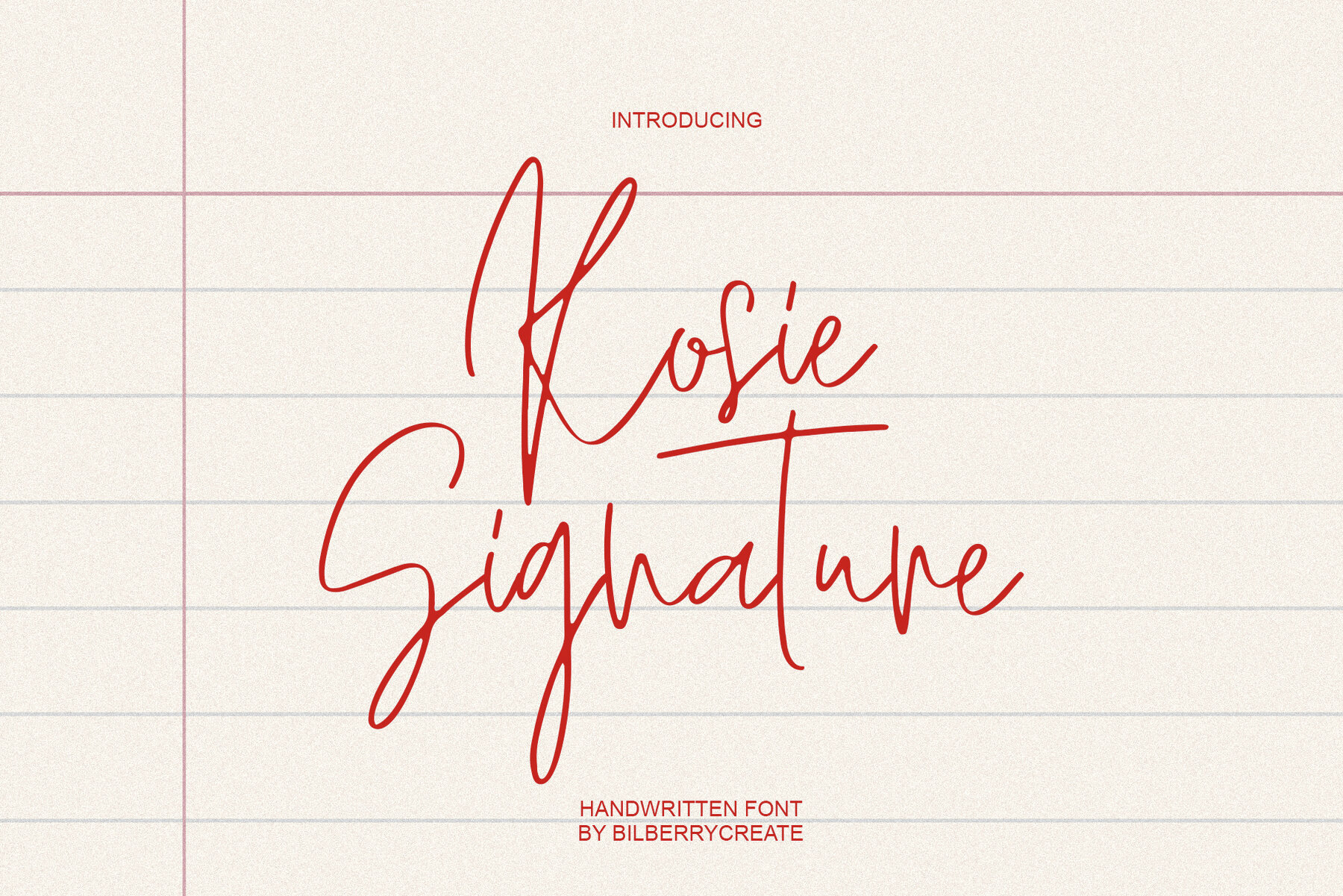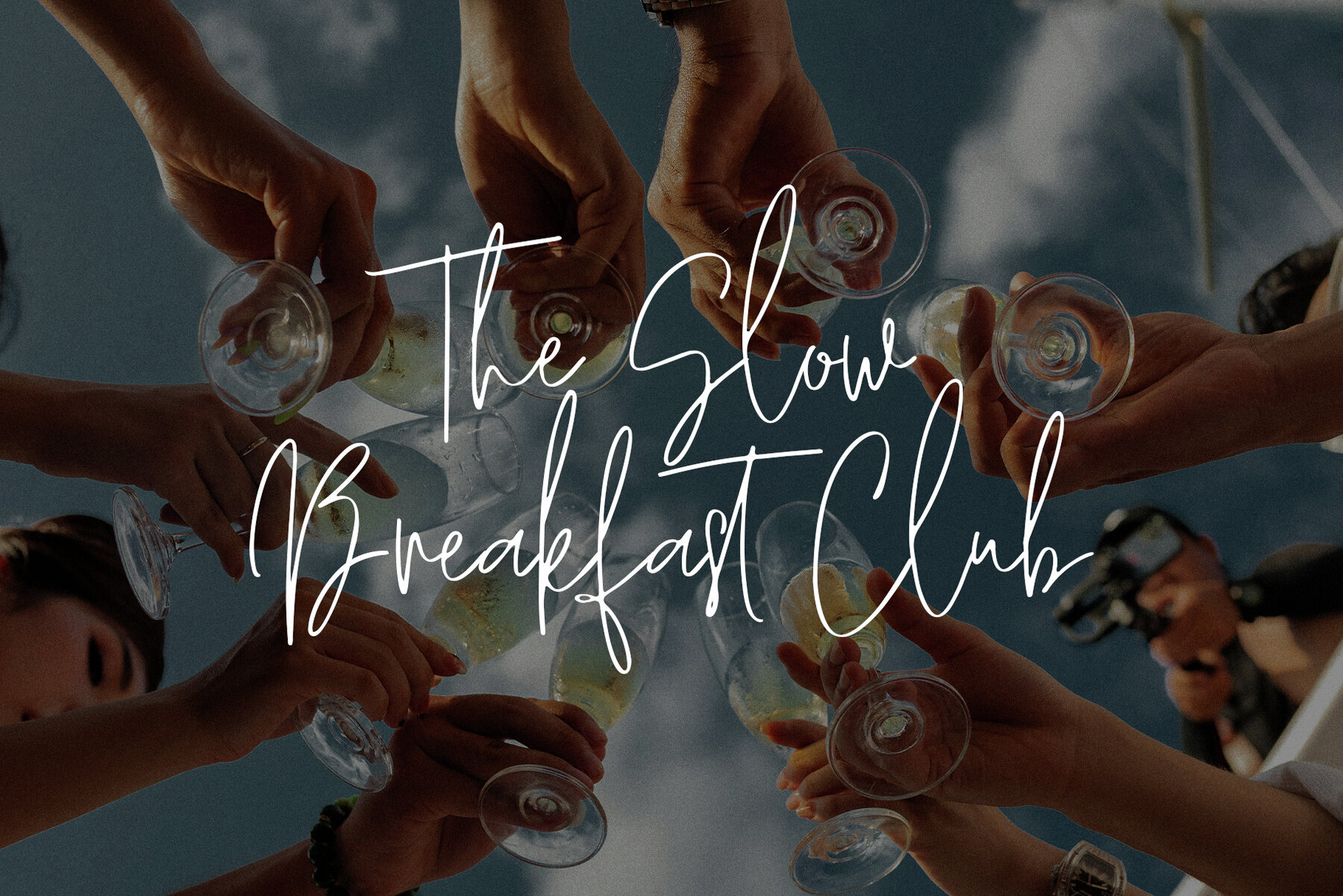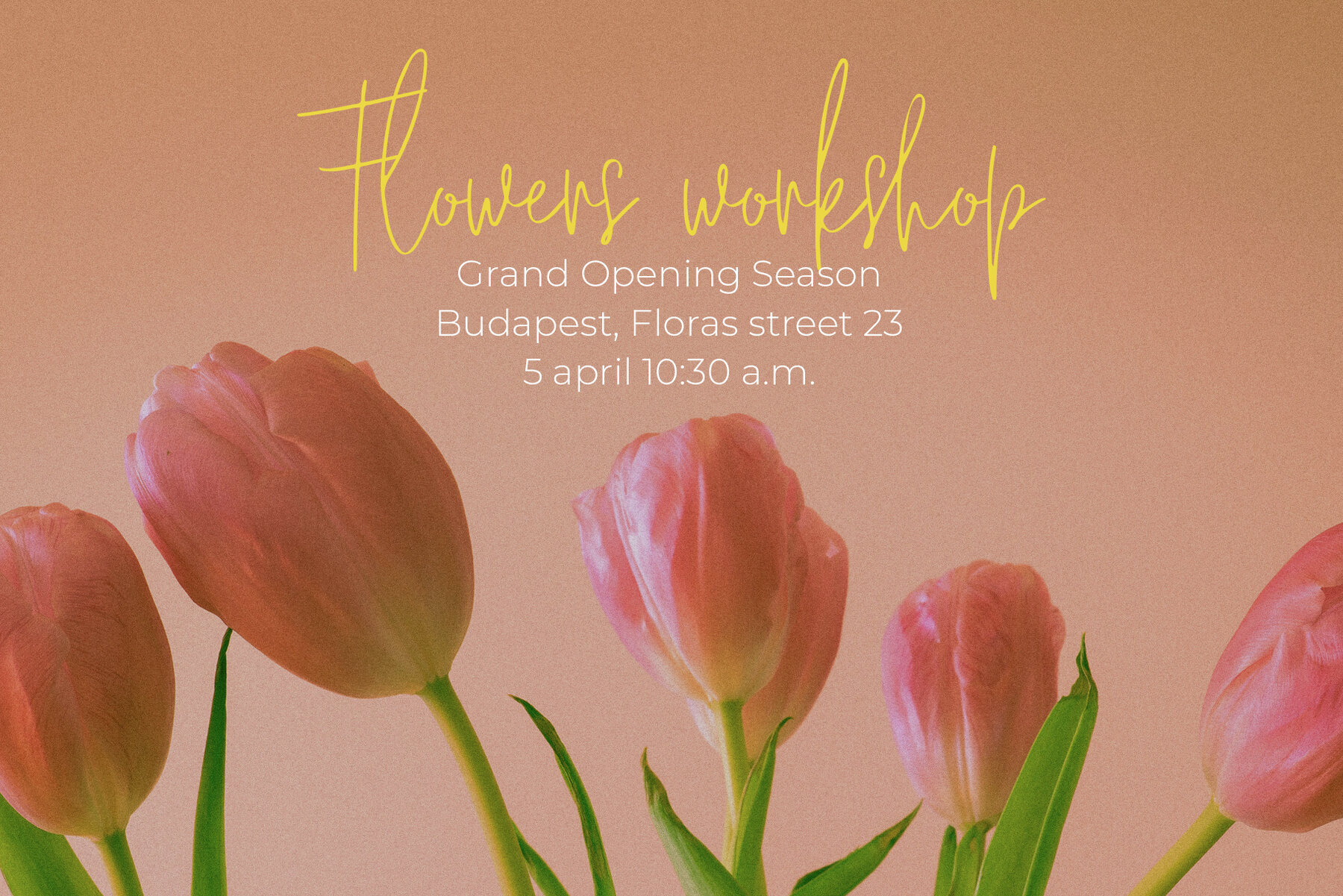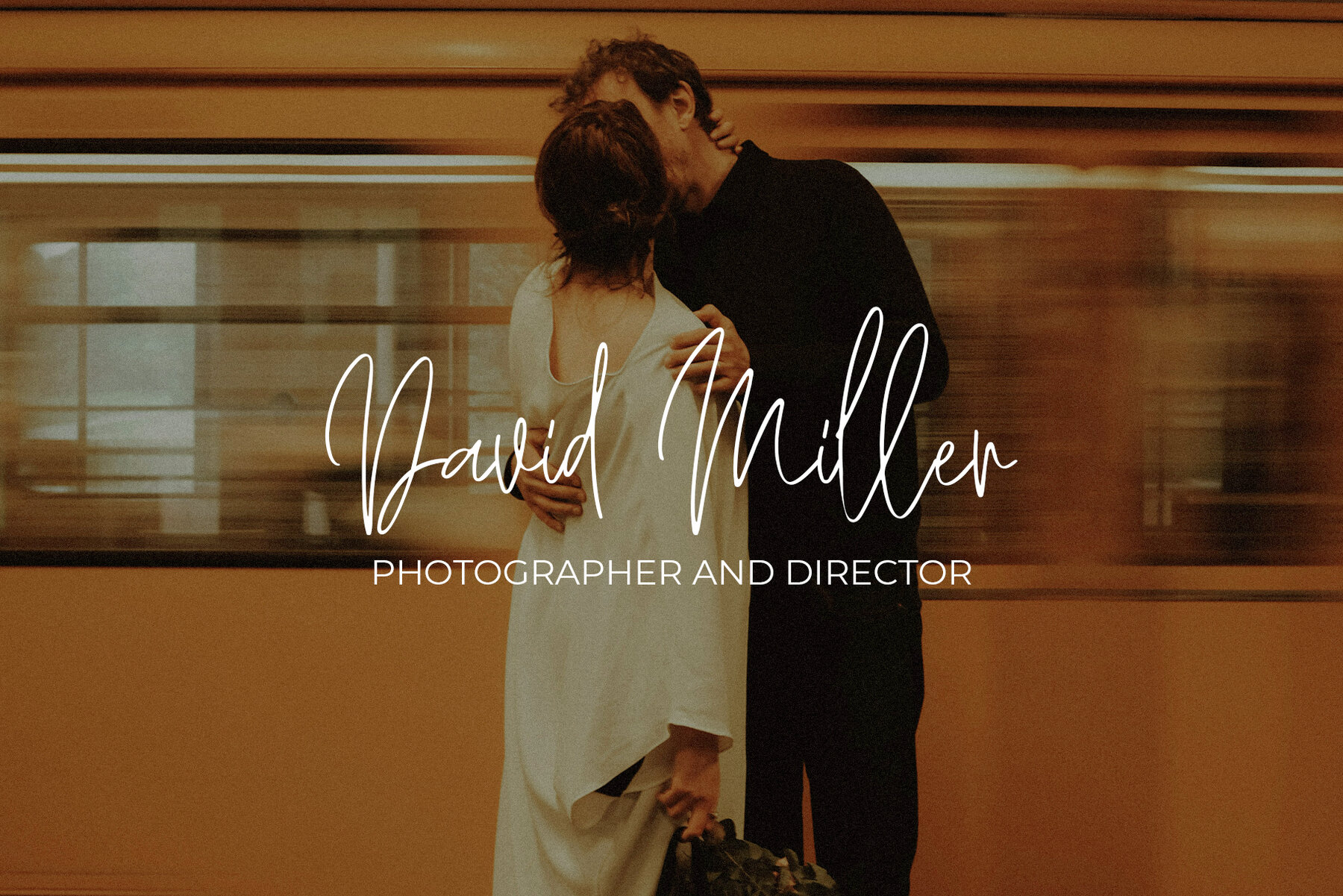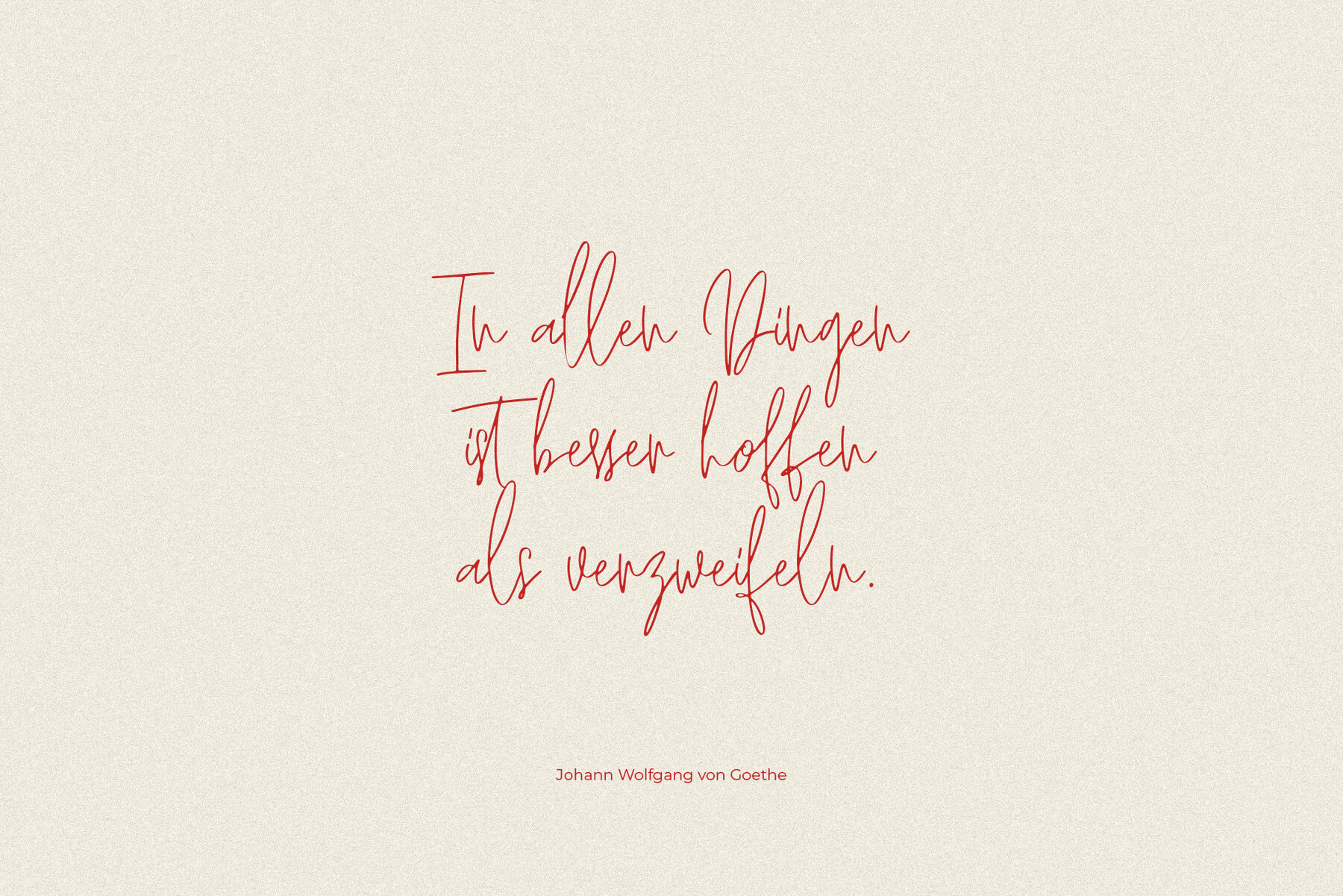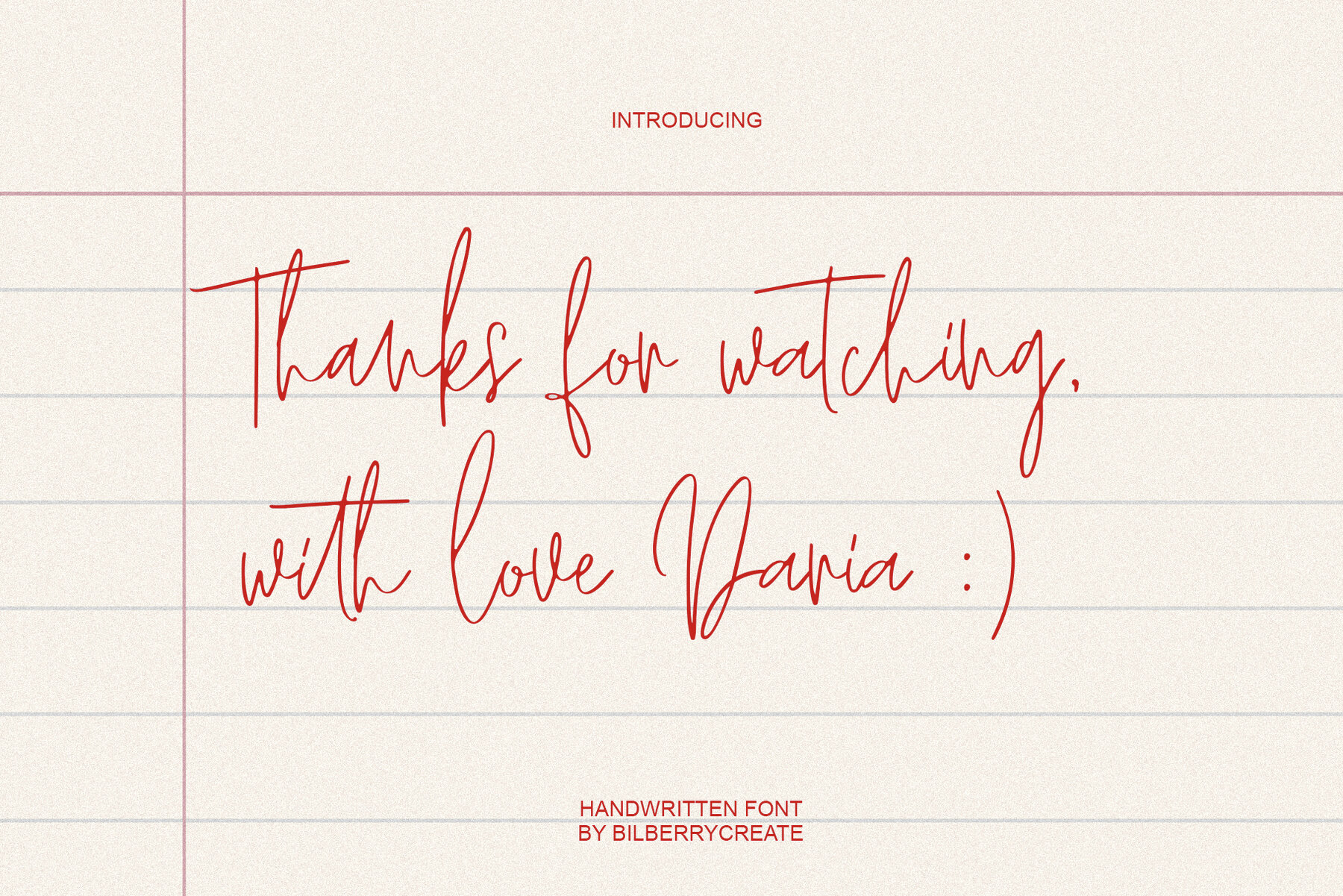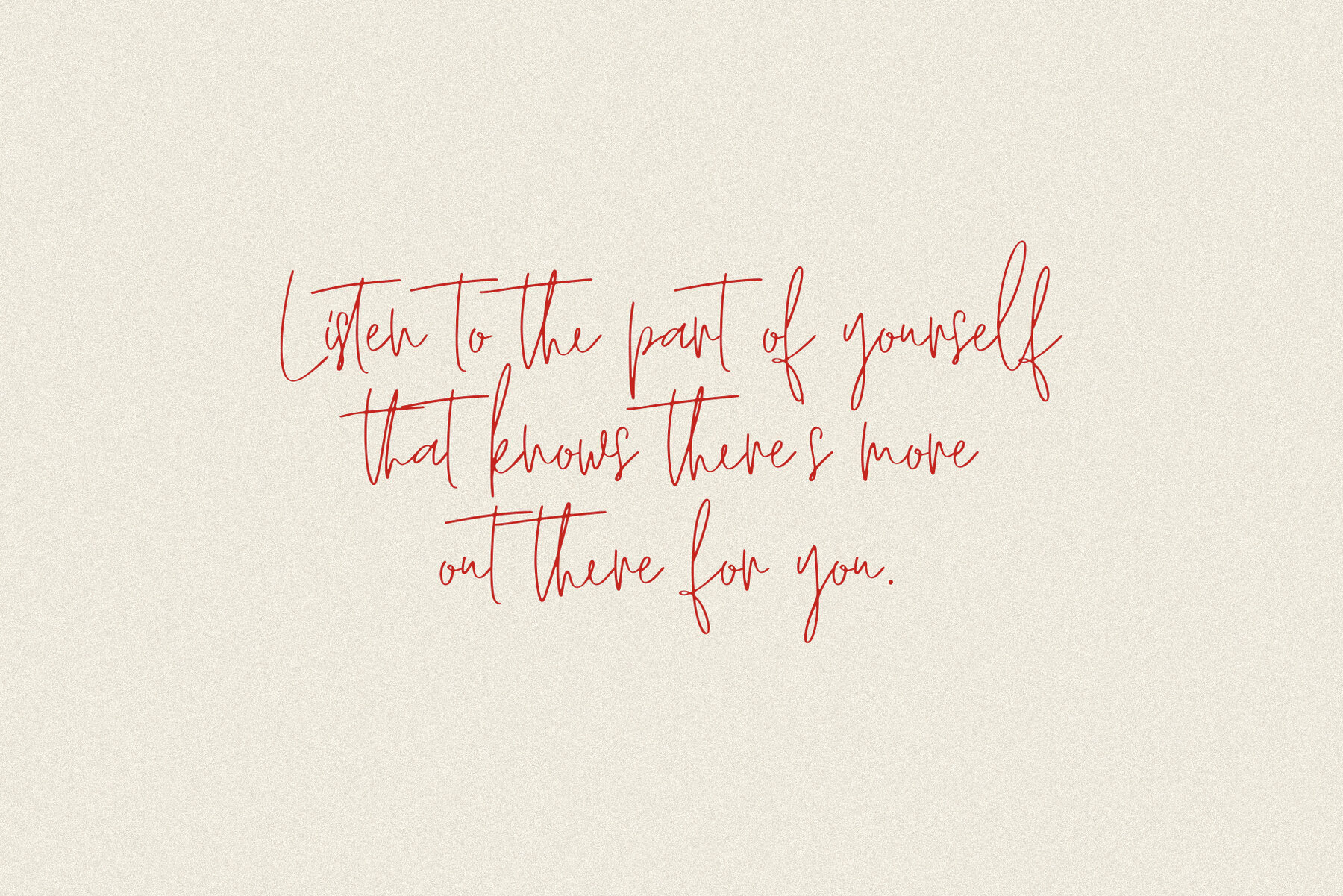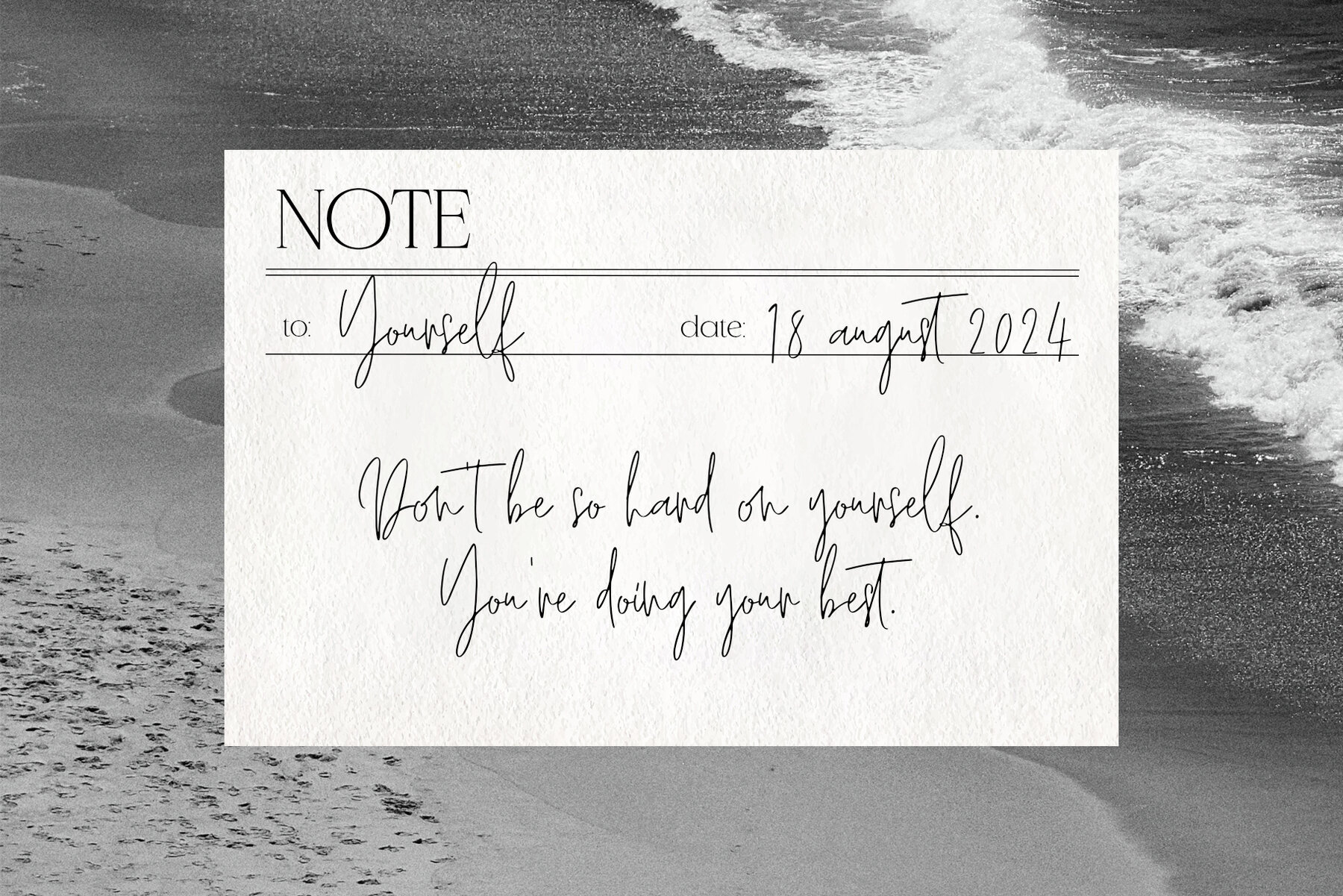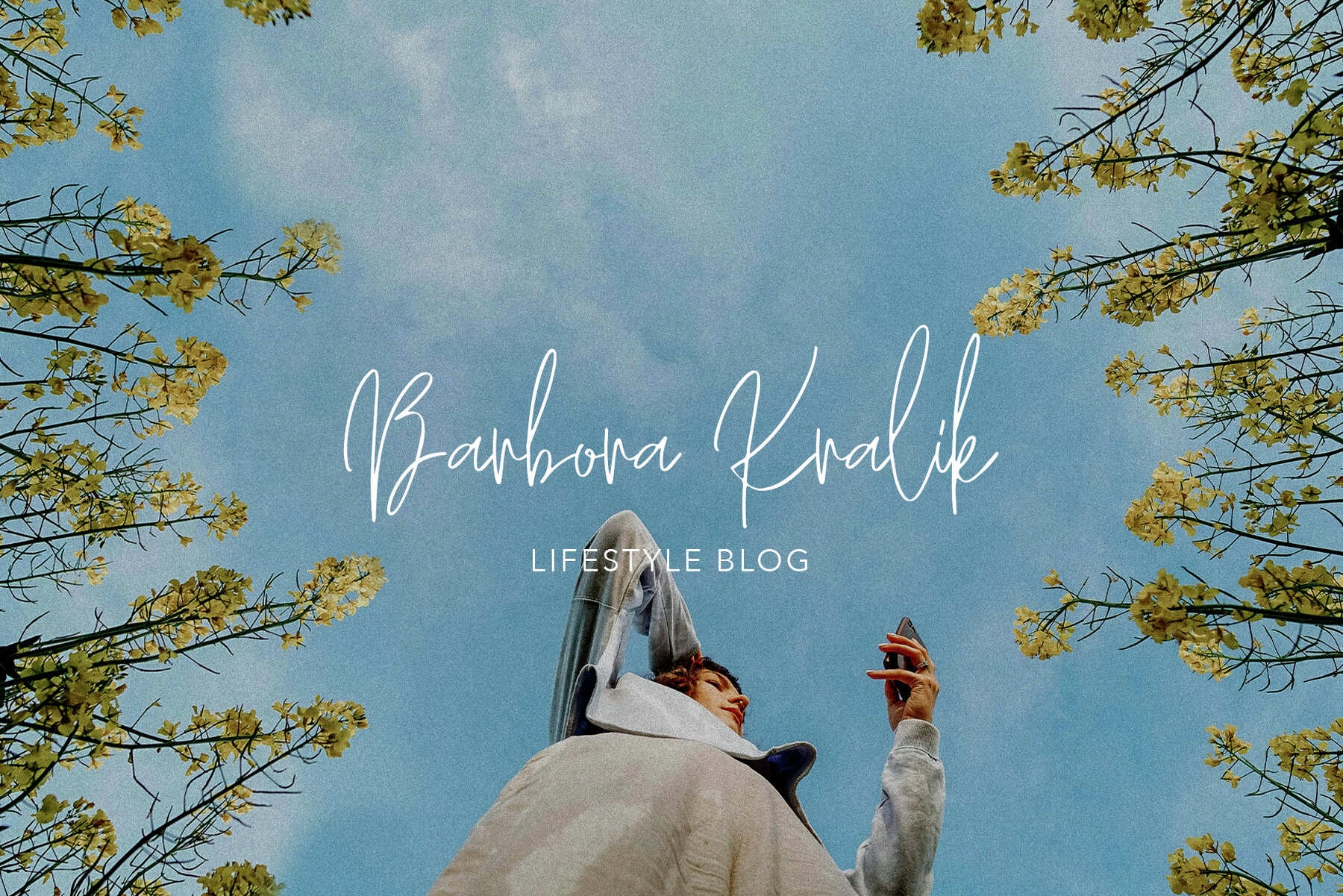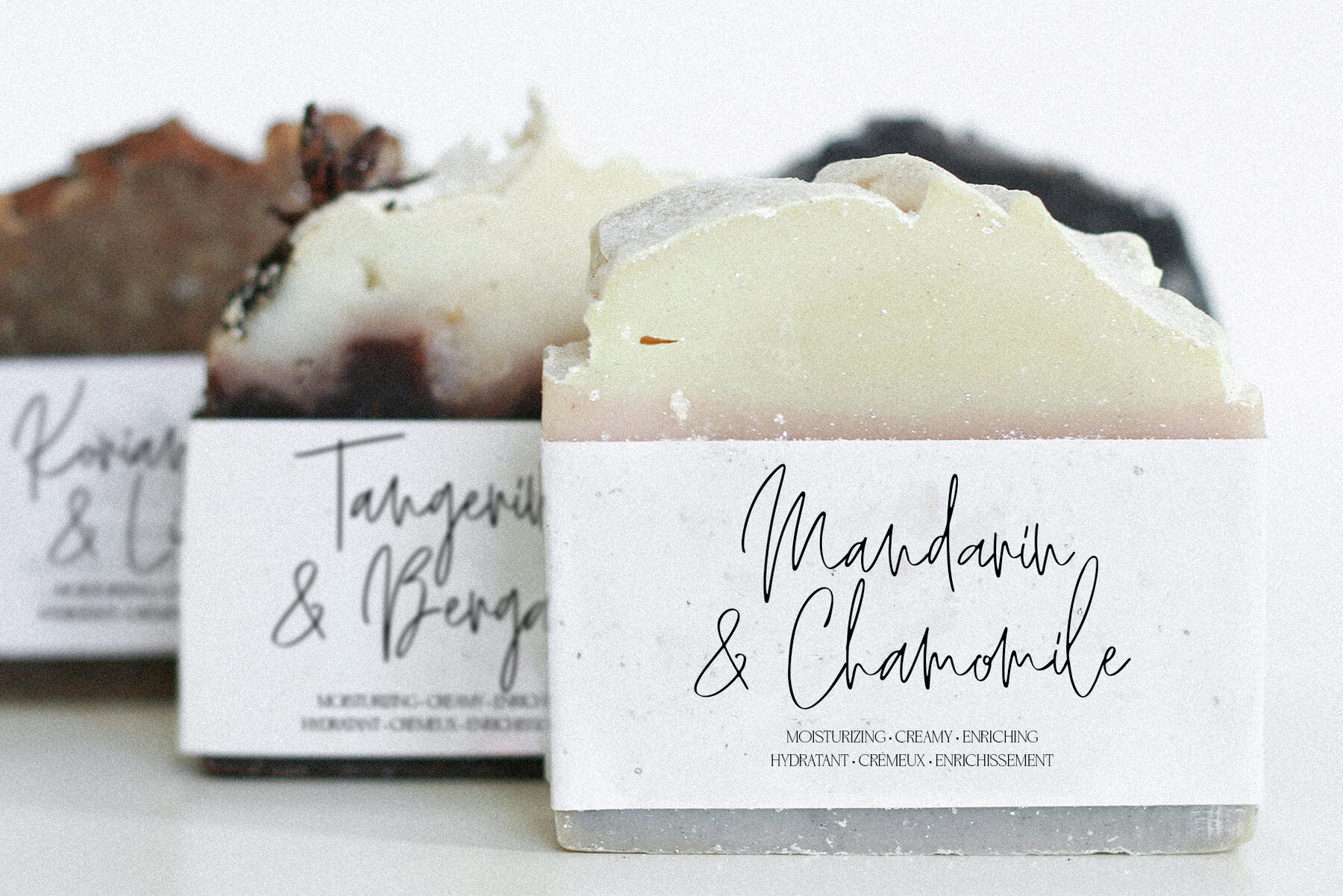
Rosie Signature
Rosie Signature is a charming handwritten font that adds a personal touch to any creative project. Perfect for logos, invitation cards, wedding cards, birthday cards, and home decor, this font brings a natural and friendly vibe. Use it to add a unique flair to packaging, holiday gifts, and party decorations or to craft custom prints on fabrics.
This versatile font is ideal for designers looking to infuse their projects with a handwritten, authentic look. Rosie Signature is designed to handle a variety of applications, ensuring your designs stand out with a personal finish.